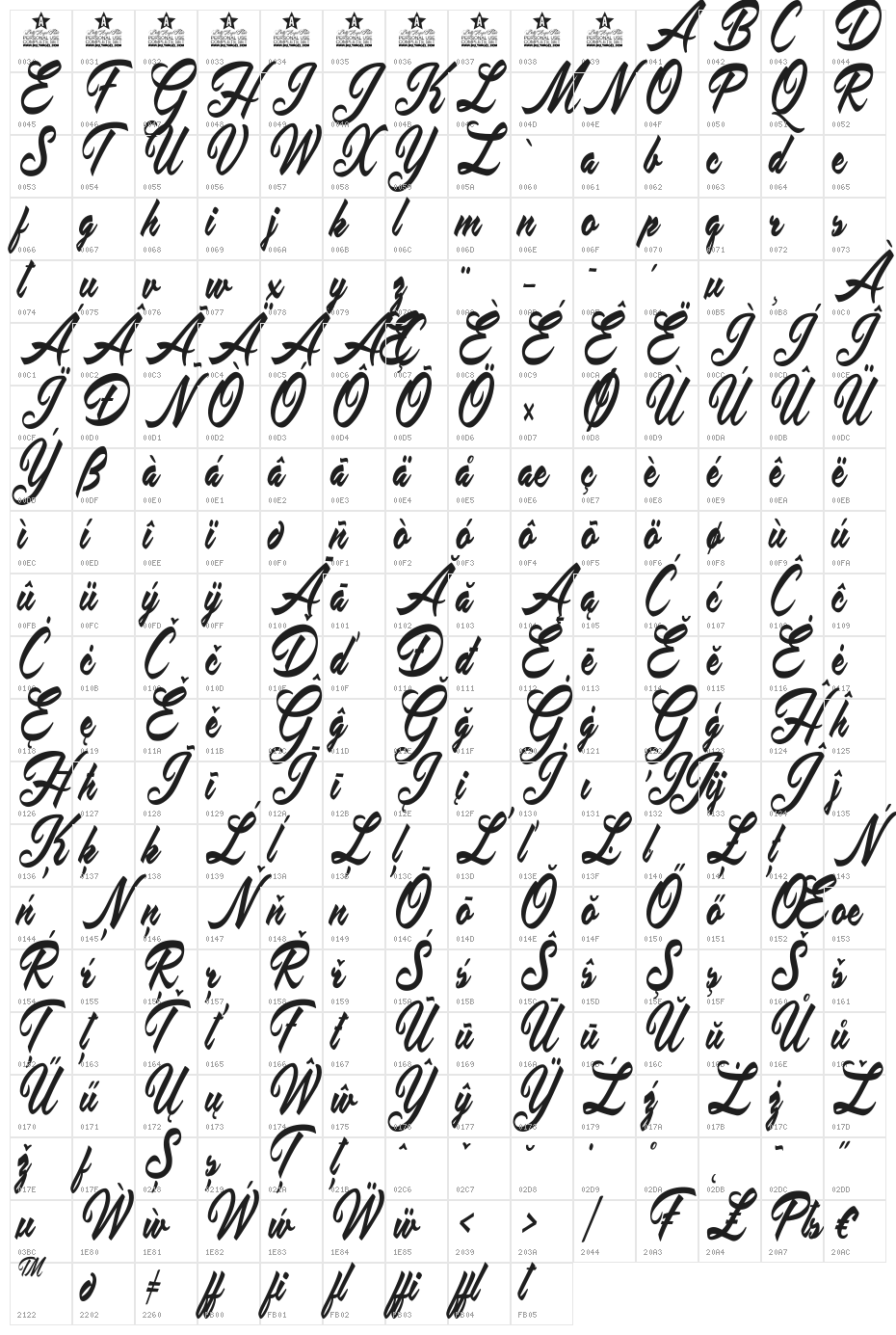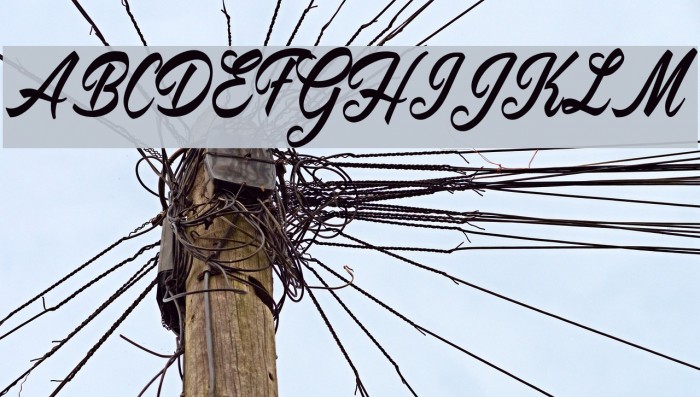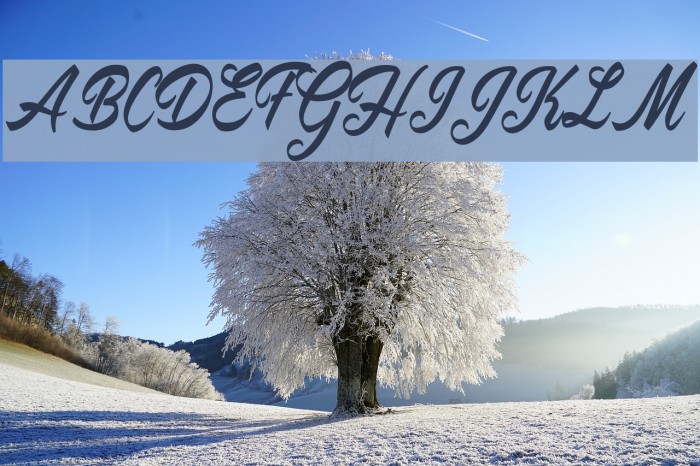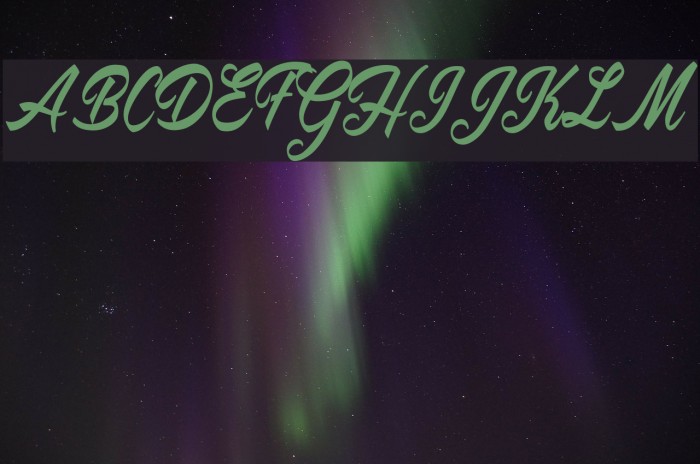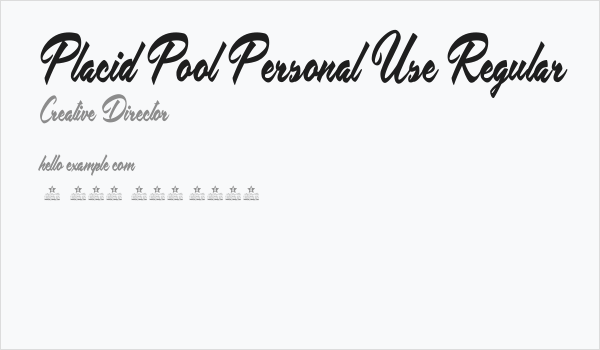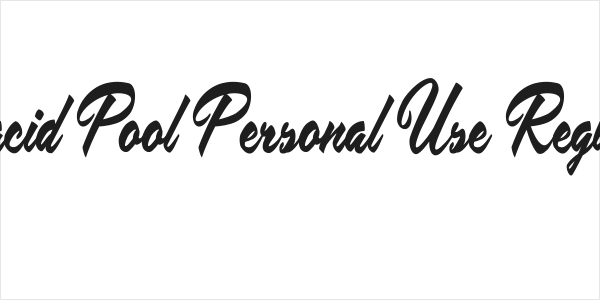
Placid Pool Personal Use Regular Font
Placid Pool Personal Use Regular Description
This font features a bold and dynamic script style, characterized by its flowing, cursive letterforms that exude elegance and flair. The uppercase letters are slightly more ornate, with sweeping curves and flourishes, while the lowercase letters maintain a consistent, smooth flow. The font's thick strokes and high contrast between thick and thin lines give it a striking appearance, making it ideal for attention-grabbing designs. The overall style is both modern and decorative, suitable for a variety of creative applications.
| Proposed Projects | Ideal for branding, invitations, greeting cards, and decorative signage. |